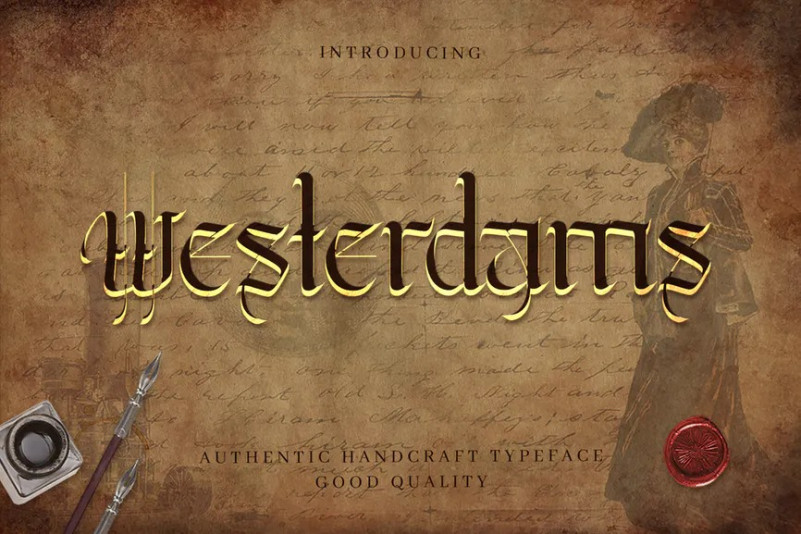
Westerdams Font
Introducing Westerdams font. Are you looking for a bold handlettering calligraphy font that has a medieval feeling? We can help! Try to download our Westerdams font. The font is manually handcrafted using calligraphy pen. We draw it manually, scan it, and digitilize the font. Suitable to use for any occasion such as book, logo, print, game, event, music, invitation and others 🙂